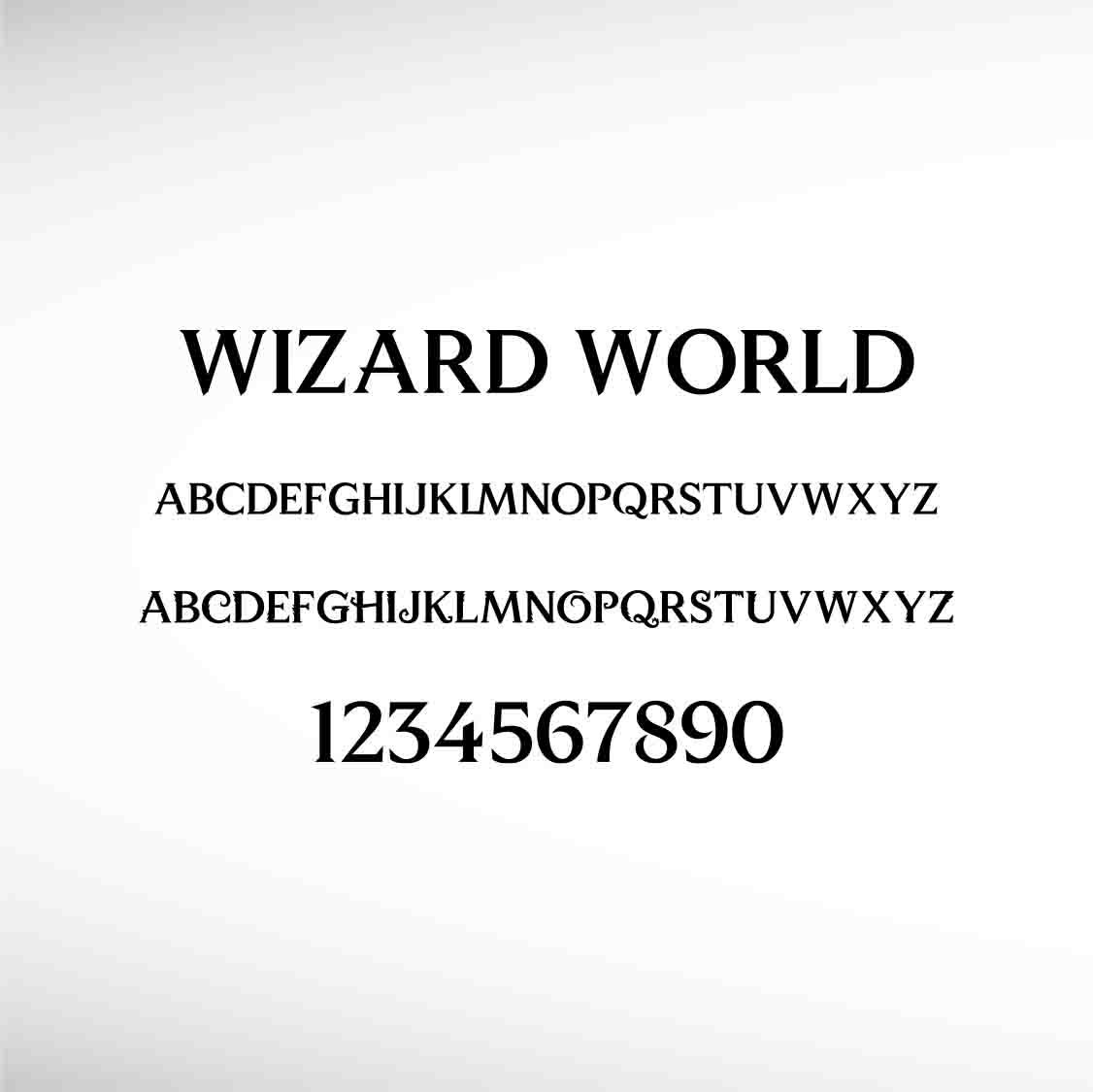
Wizard World Simplified by KELGE Fonts. Wizard World Simplified is the perfect font for all your fun designs. The font subfamily is Regular.
Designed by KELGE Fonts | TrueType Font